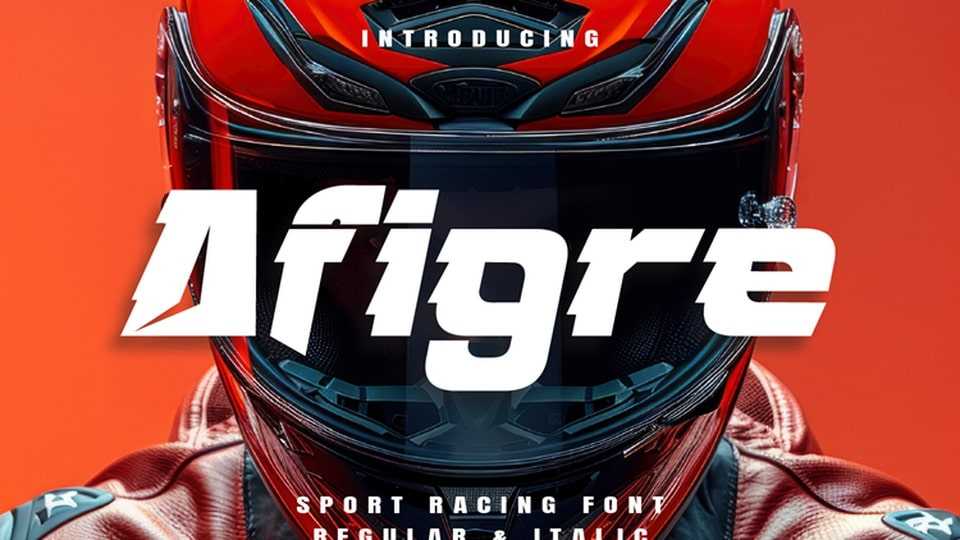
Download Afigre font, a bold and aggressive display typeface crafted for speed, power, and precision inspired by the high-octane world of motorsports.